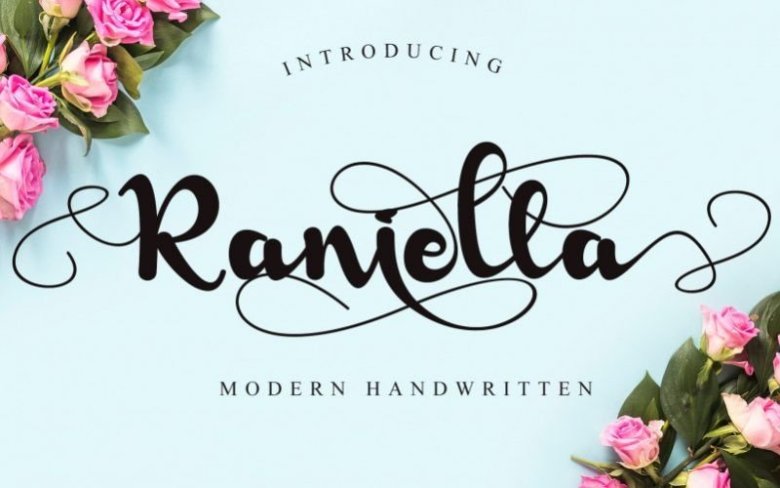
Raniella Font
Raniella Calligraphy Font, designed by Harjuno Kristanto is a modern calligraphy font that brings its own unique style to any design project. It will elevate a wide range of design projects to the highest level, be it branding, headings, wedding designs, invitations, signatures, logos, labels, and much more!